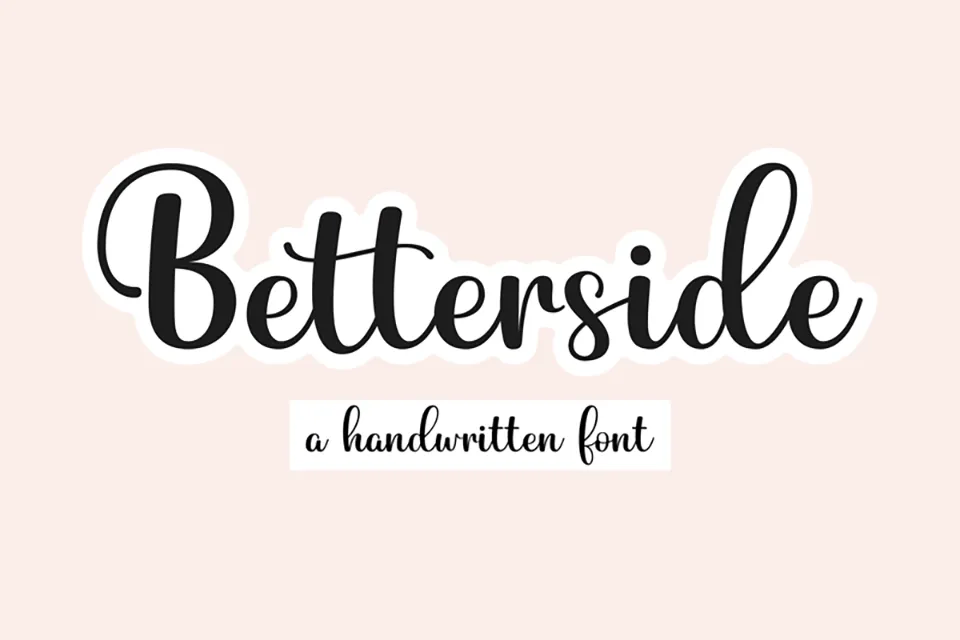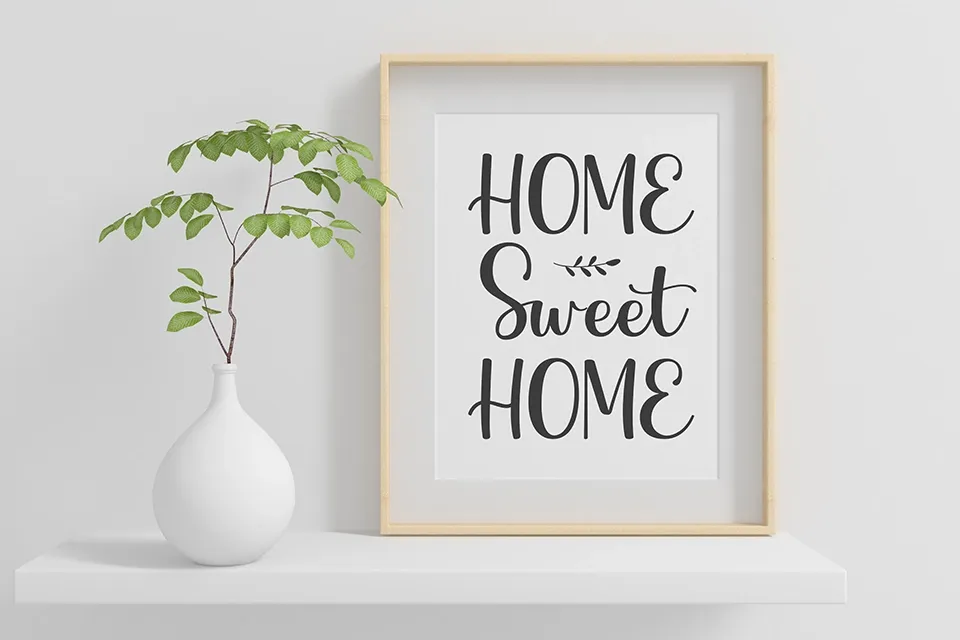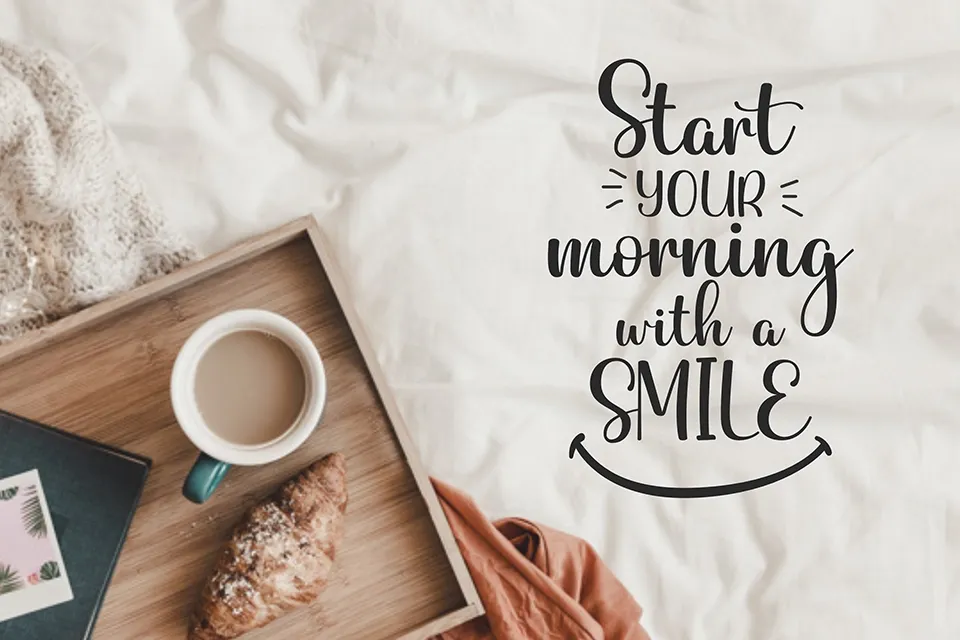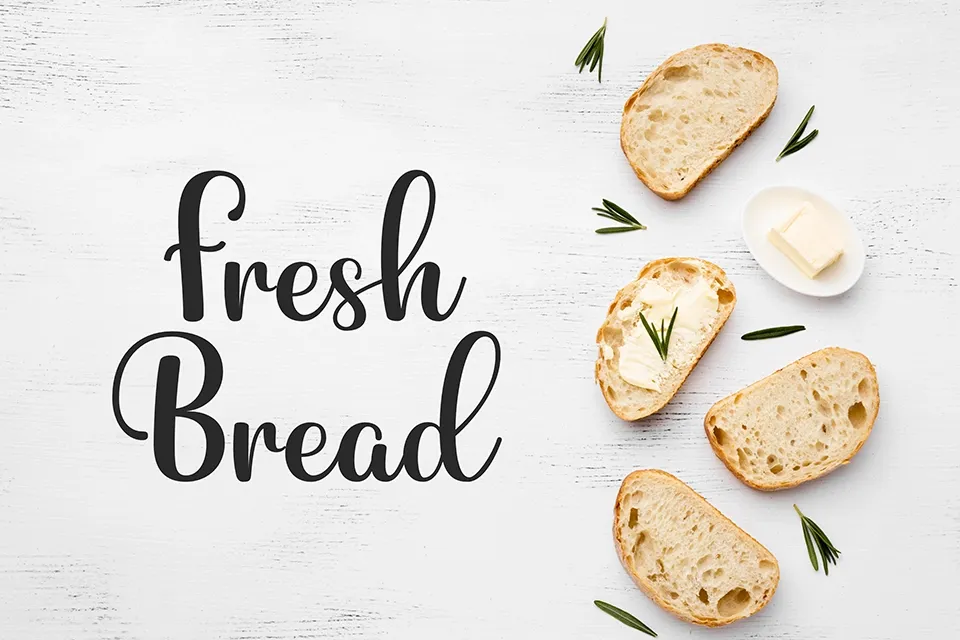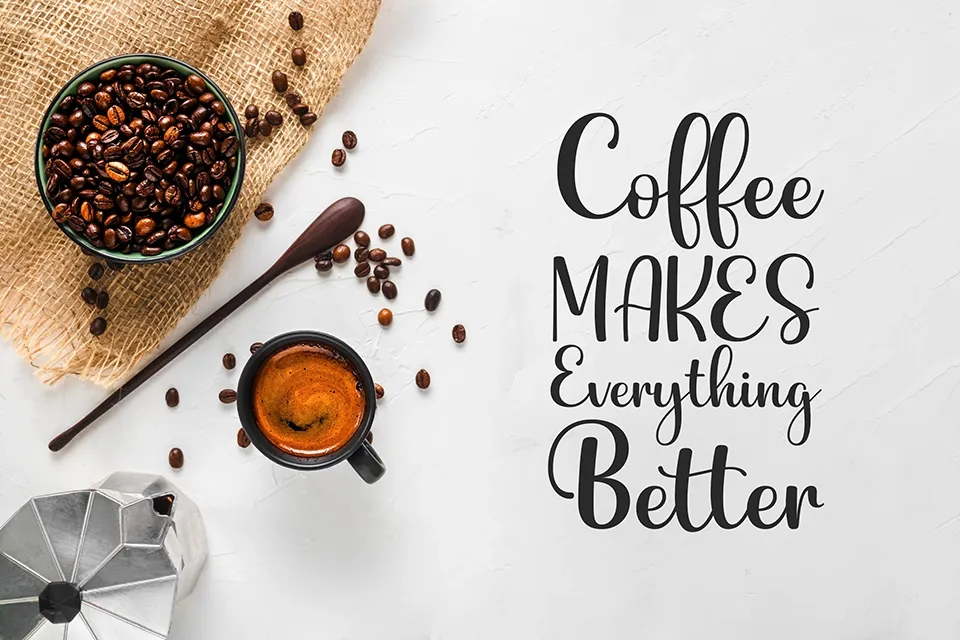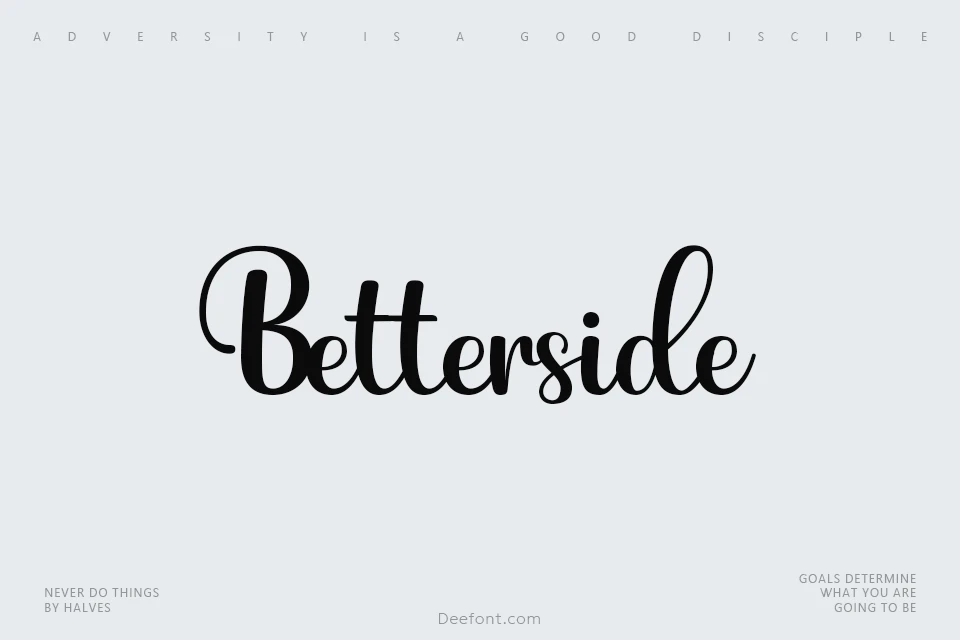
Betterside Font
Betterside Font is a sweet and cursive handwritten typeface. This gentle font will look gorgeous on a variety of design ideas. It will add a joyful and romantic touch to each of your projects!
The font is perfect for greeting cards, branding, business cards, quotes, posters, stickers, blogs, logos, weddings, signage, packaging, birth announcements, photo overlays, wall art, quotes, printed materials, bags, t-shirts and more. . . !